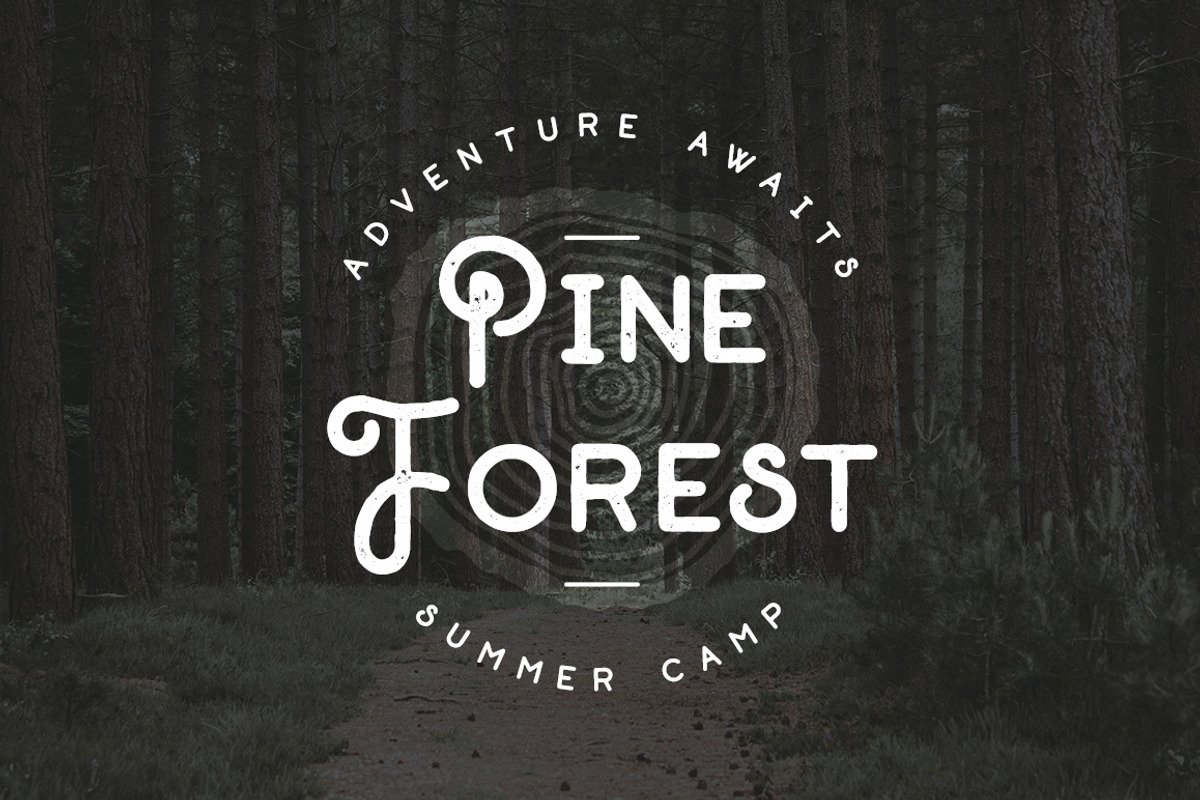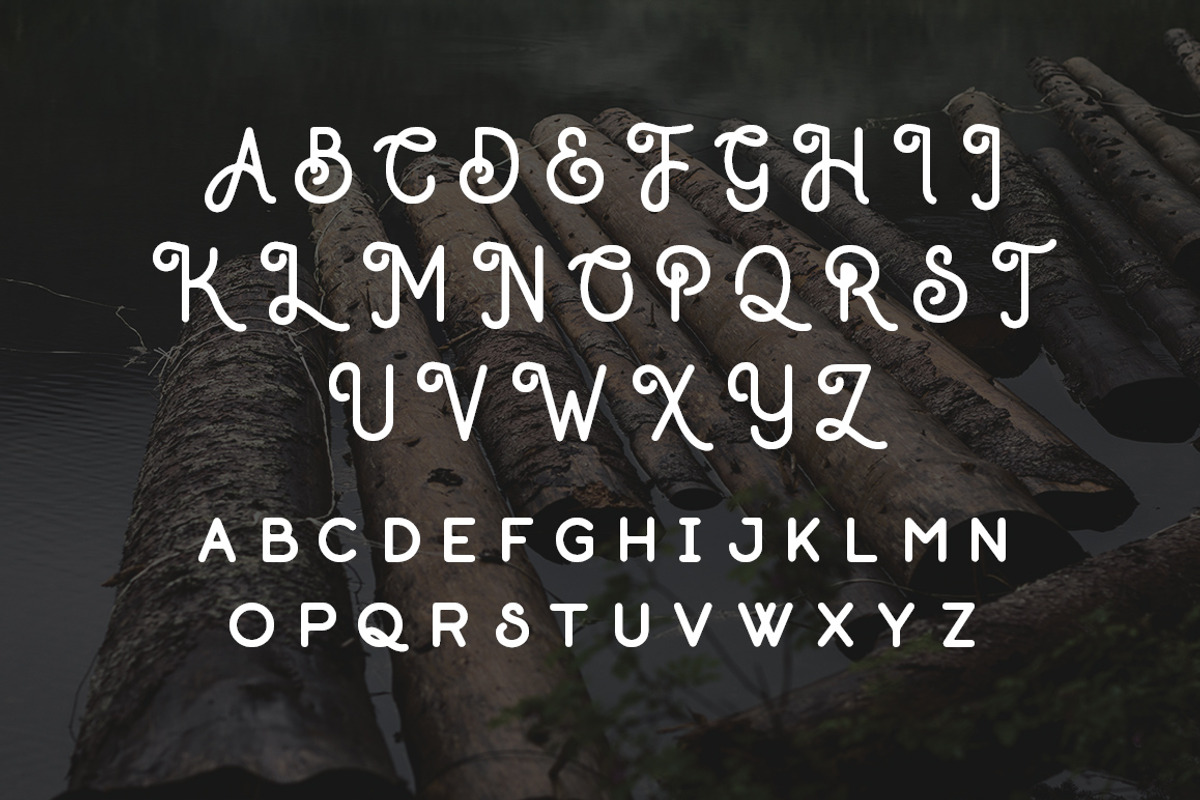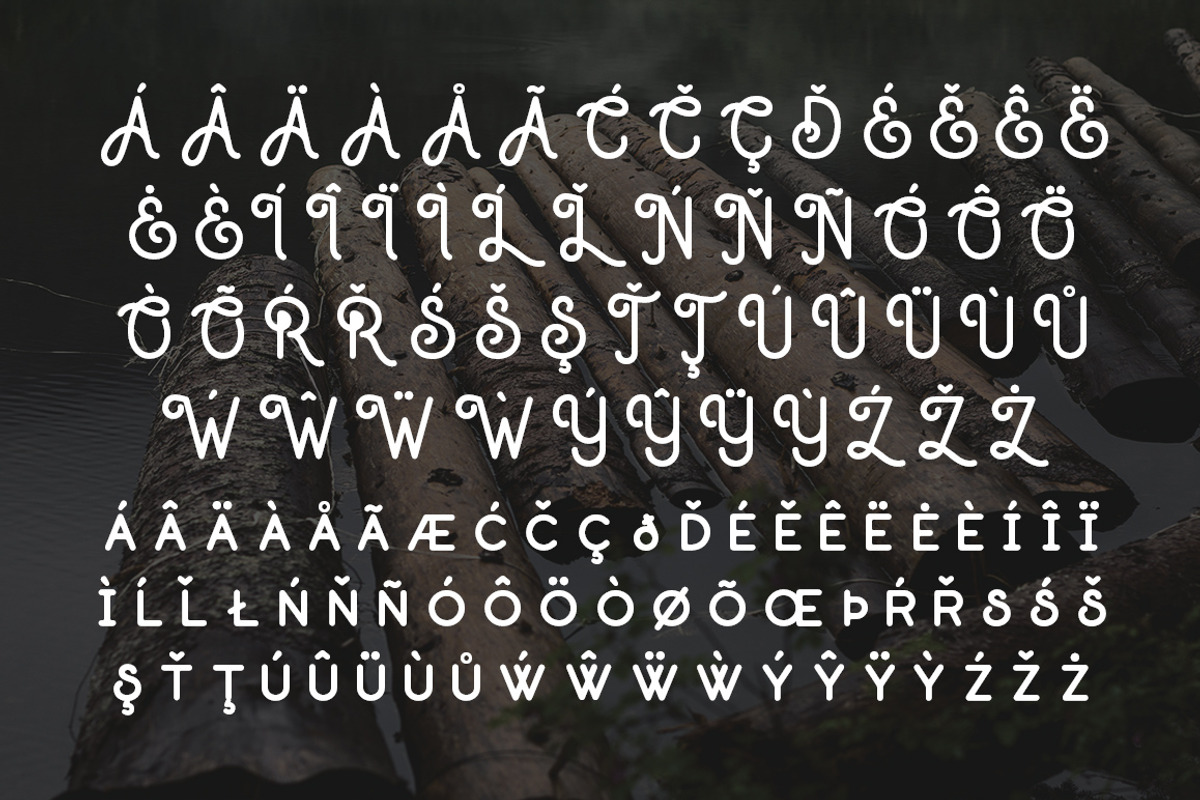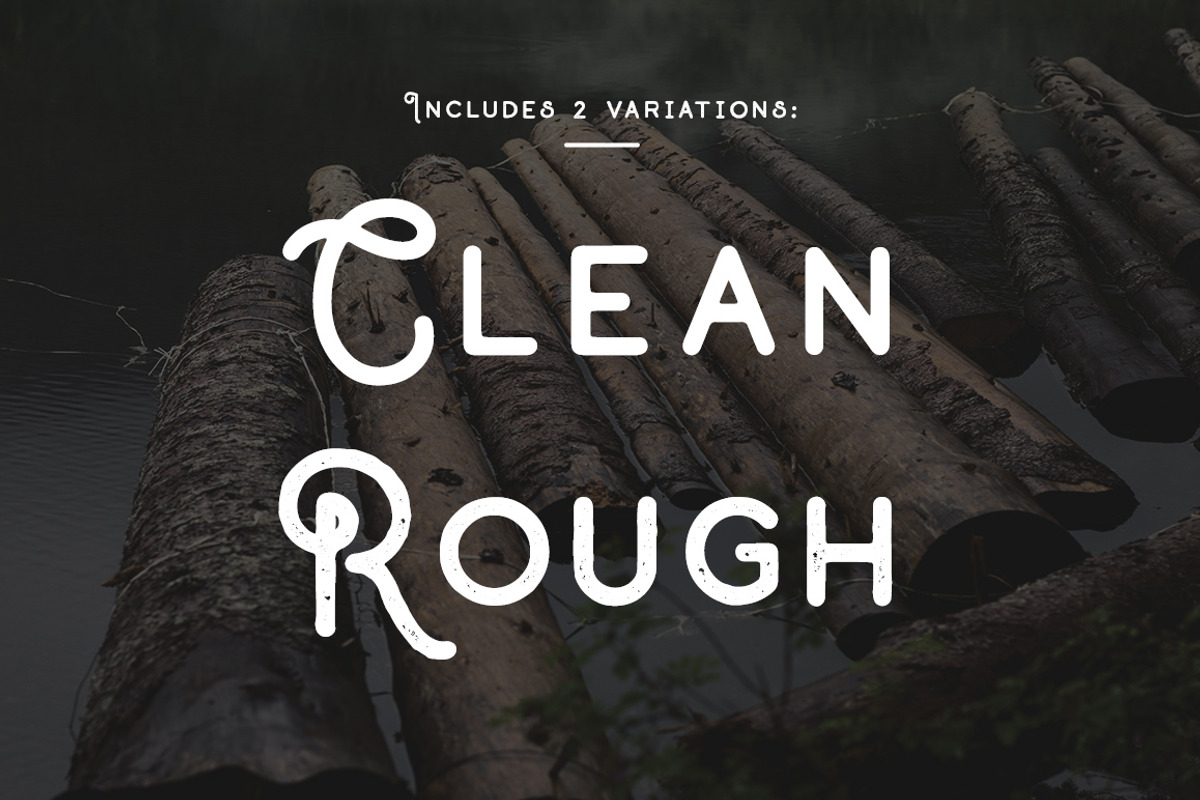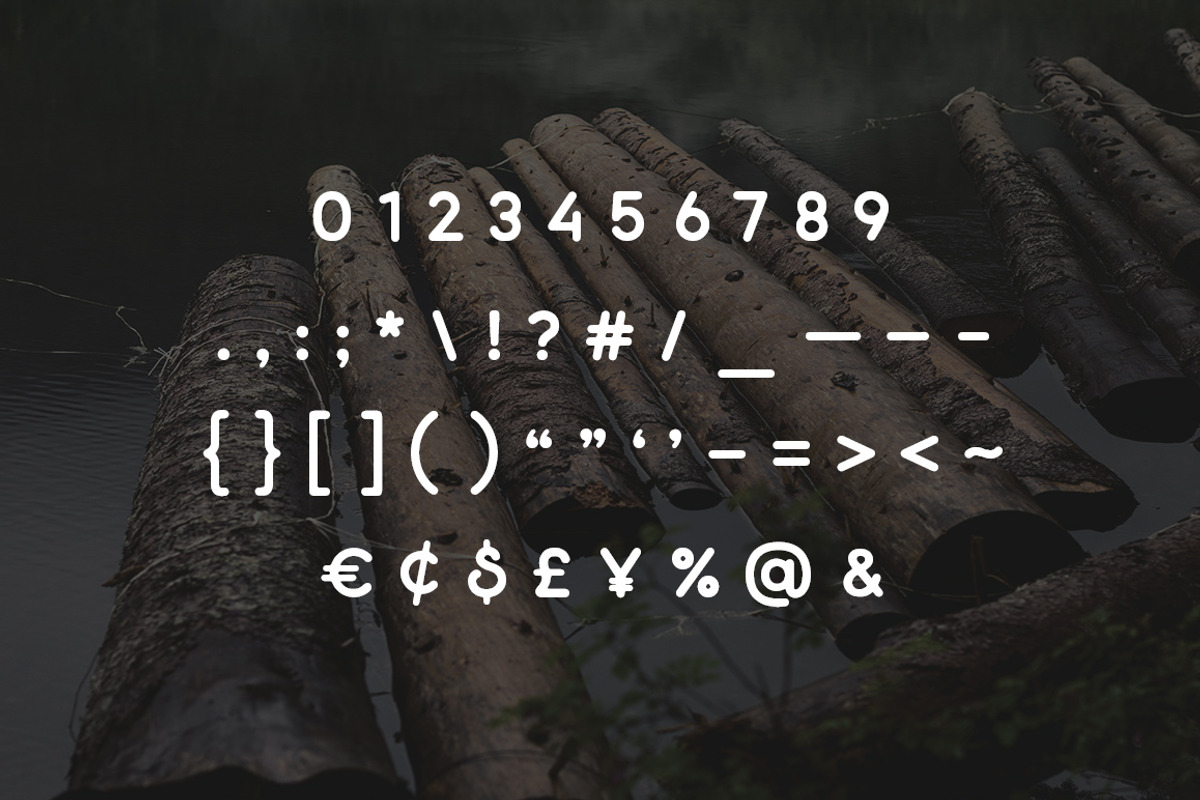
Outdoors - Handmade Sans Serif Font
Outdoors is a new sans serif typeface with a handmade look and feel, perfect for camping, hiking and related projects but suitable for almost any application. This font features uppercase letters with decorative swirls and small caps letters with simple letterforms that perfectly compliment each other.
Uppercase letters with decorative elements
Most common symbols and punctuation
European language support (please see preview images for what is included)
- Outdoors Clean
- Outdoors Rough